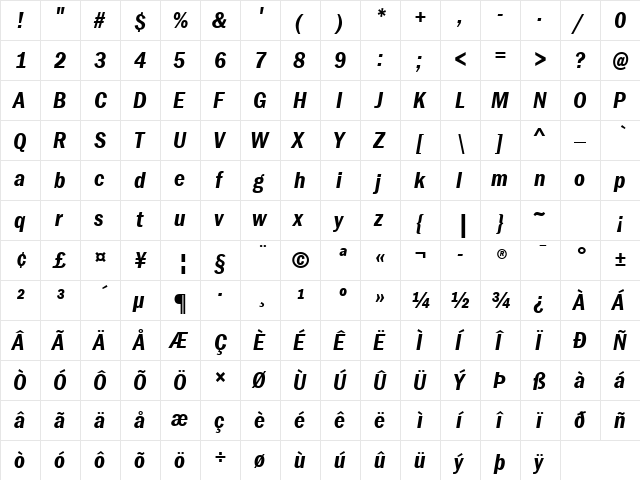
ITC Franklin Gothic LT Com Demi Condensed Italic Font Preview
Design Context for ITC Franklin Gothic LT Com Typeface
ITC Franklin Gothic LT Com has the quiet confidence of well-executed sans-serif typography: versatile, unobtrusive, and dependable at any size. The slanted form adds forward momentum and visual energy. Its slender proportions lend an understated elegance to any composition. The condensed width makes it efficient for tight spaces without sacrificing legibility.
Ideal for fashion and beauty branding, minimal editorial layouts, and premium digital experiences.
Font Pairing: Pair ITC Franklin Gothic LT Com with a medium or bold serif for headlines — the weight contrast creates an elegant, high-end feel.
Pro Tip: Try ITC Franklin Gothic LT Com in all-caps with moderate tracking for navigation and label copy — it performs well in systematic UI contexts.